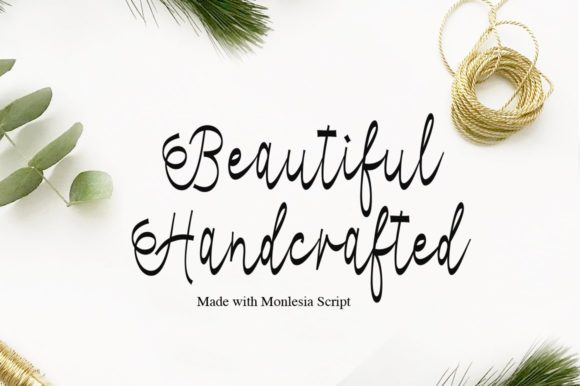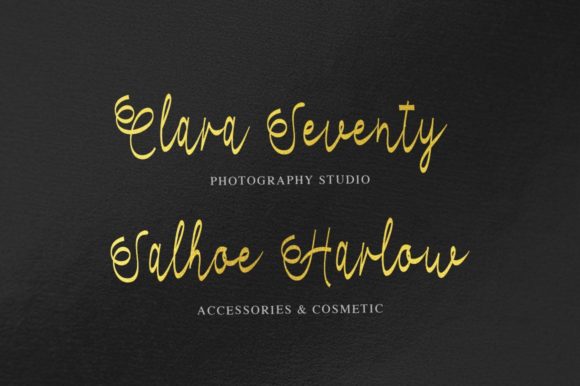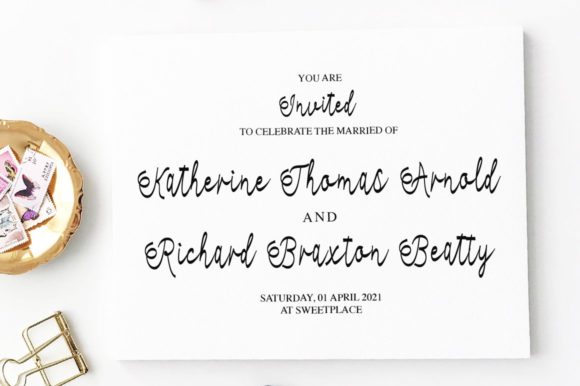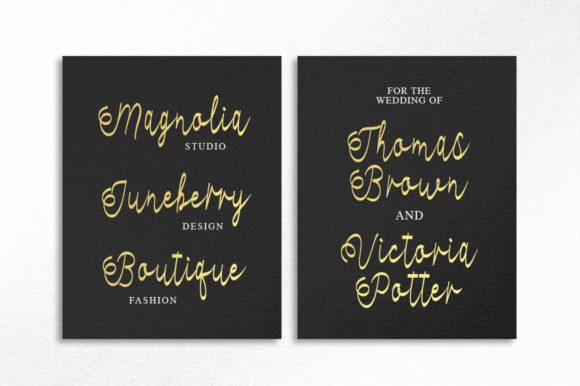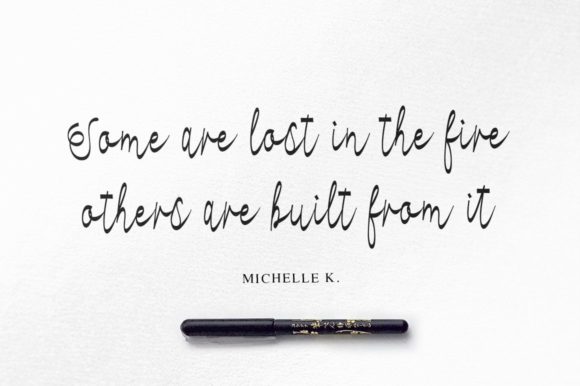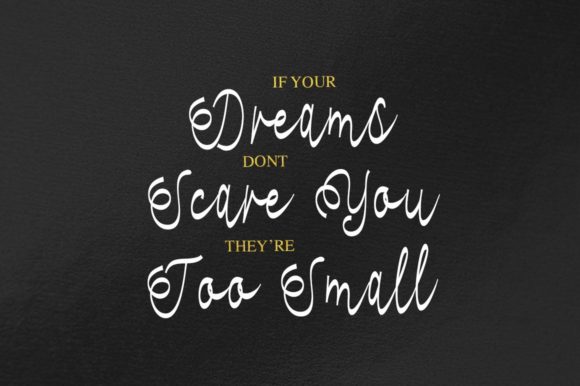
Introduction to Monlesia Font
Have you ever found yourself scribbling down a beautiful handwritten note, only to realize that it’s the perfect idea for a design project? This is exactly what happened to many designers when they stumbled upon the enchanting Monlesia Font. With its whimsical, handwritten feel and nostalgic touch, this font has captured the hearts of creatives worldwide.
Whether you’re working on a logo, greeting card, branding project, or simply want to add a touch of personality to your quotes, prints, or invitations, Monlesia Font is an excellent choice. Its high-quality design makes it a valuable resource for any designer, and the best part? It’s available for free download, making it an accessible design resource for creatives of all levels.
Key Features of Monlesia Font
- The font comes in a single weight, providing a clean and minimalist aesthetic for your design project.
- Monlesia Font is a unique and creative design element, perfect for adding a touch of elegance to your project.
Honest Review: Monlesia Font
I recently had the chance to work with Monlesia Font, a high-quality design resource that’s perfect for creative projects. The font’s transparent background makes it easy to layer and combine with other design elements.
What works well: ✨ I love the elegant, modern look of Monlesia Font. It’s perfect for a wide range of design applications, from web design to print materials. The font is also highly customizable, allowing you to adjust the weight and style to suit your needs.
Tips for Getting the Most Out of Monlesia Font
Monlesia Font is a high-quality design resource that can add a touch of elegance to your creative project. To get the most out of it, use it in combination with a transparent background to create a stunning visual effect. You can also experiment with different font sizes and styles to achieve the desired look.
Monlesia Font is ideal for use in brochures, business cards, and other marketing materials. It’s also a great choice for creative projects such as typography-based art and graphic designs. With its free download option, you can access this versatile font and use it in a variety of design projects.
Comparison to Monlesia Font: Great Vibes Font has a more refined and elegant feel compared to Monlesia Font, which is bolder and more playful. Great Vibes Font is suitable for projects where a more subtle approach is needed.